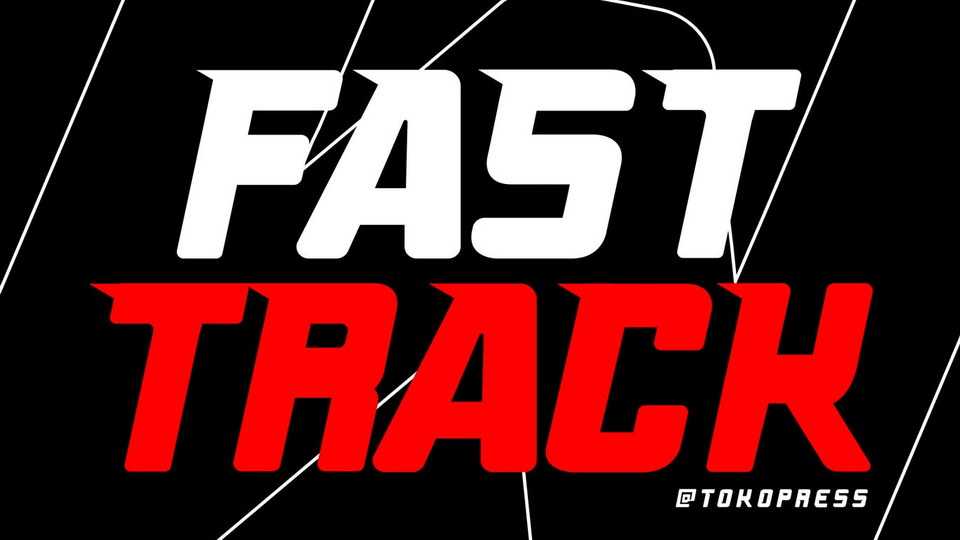
Download Fast Track font, a racing gaming typeface. With a powerful, strong sharp corner, and a solid shape with cutout and pointy corner to make it go whooos, it will make Fast Track emphasize the racing spirit inside your designs.